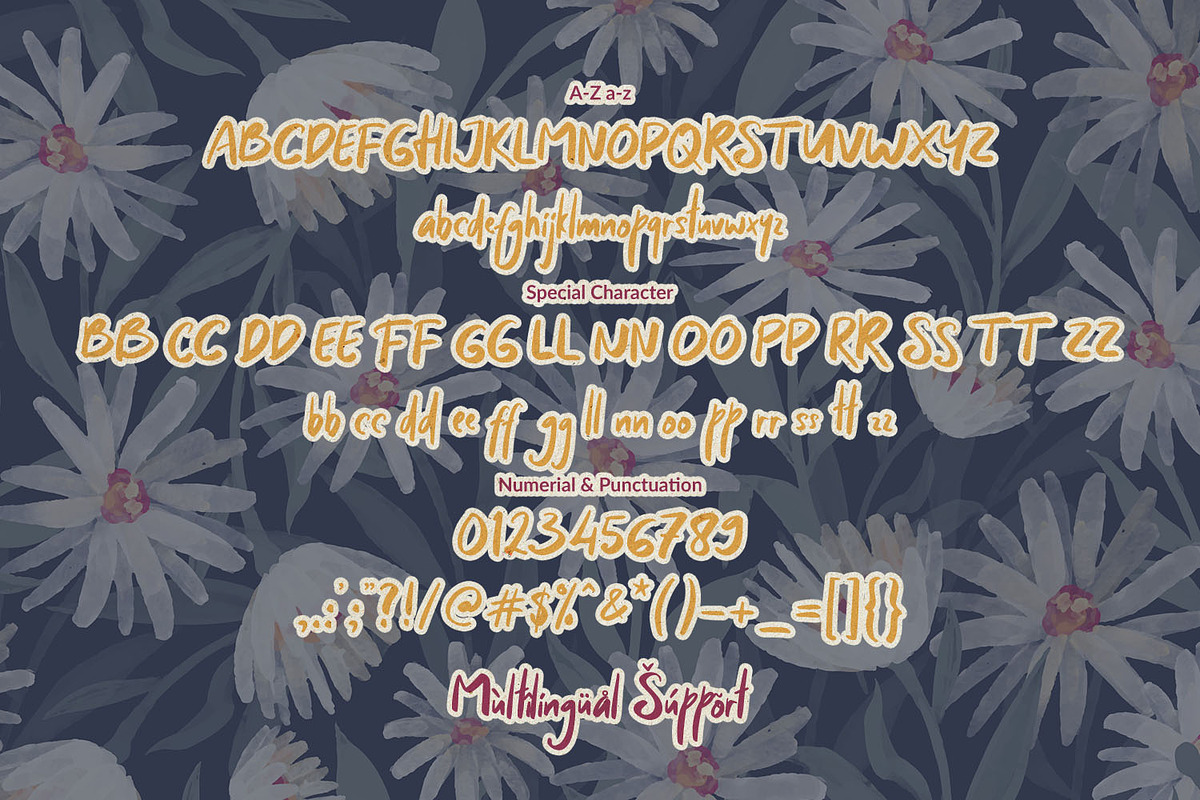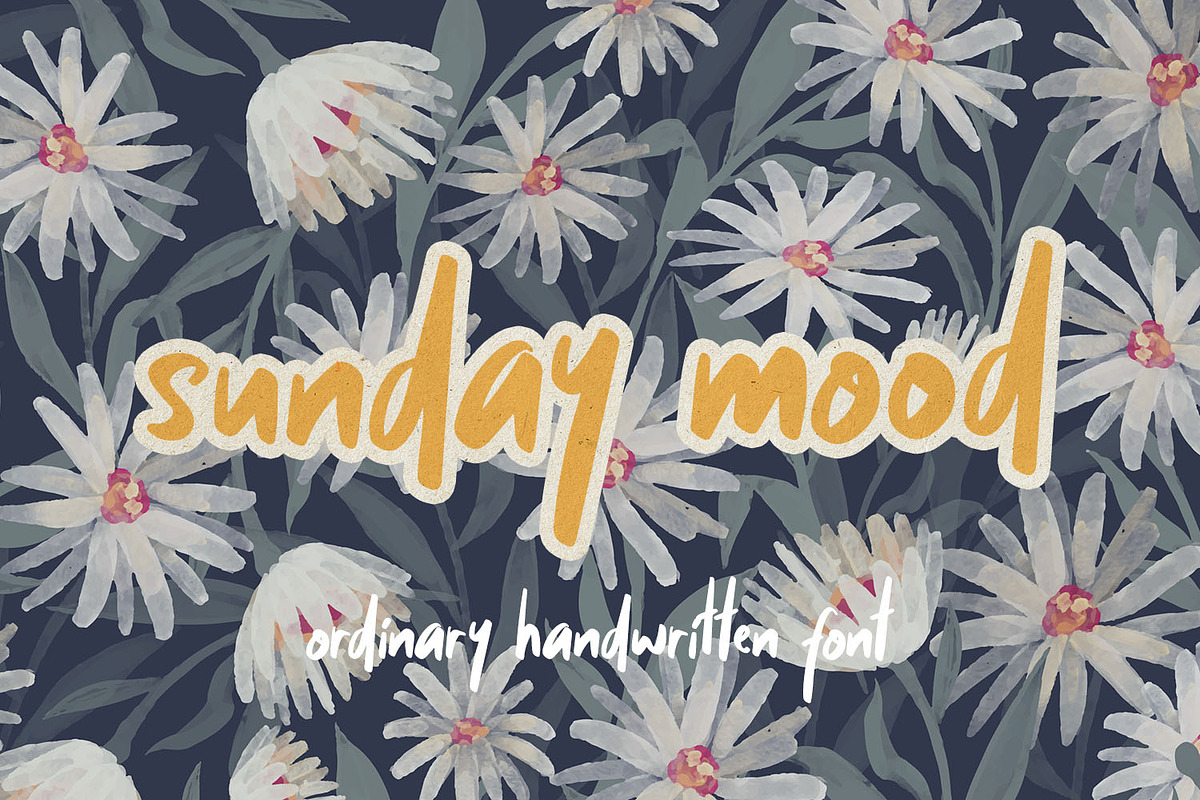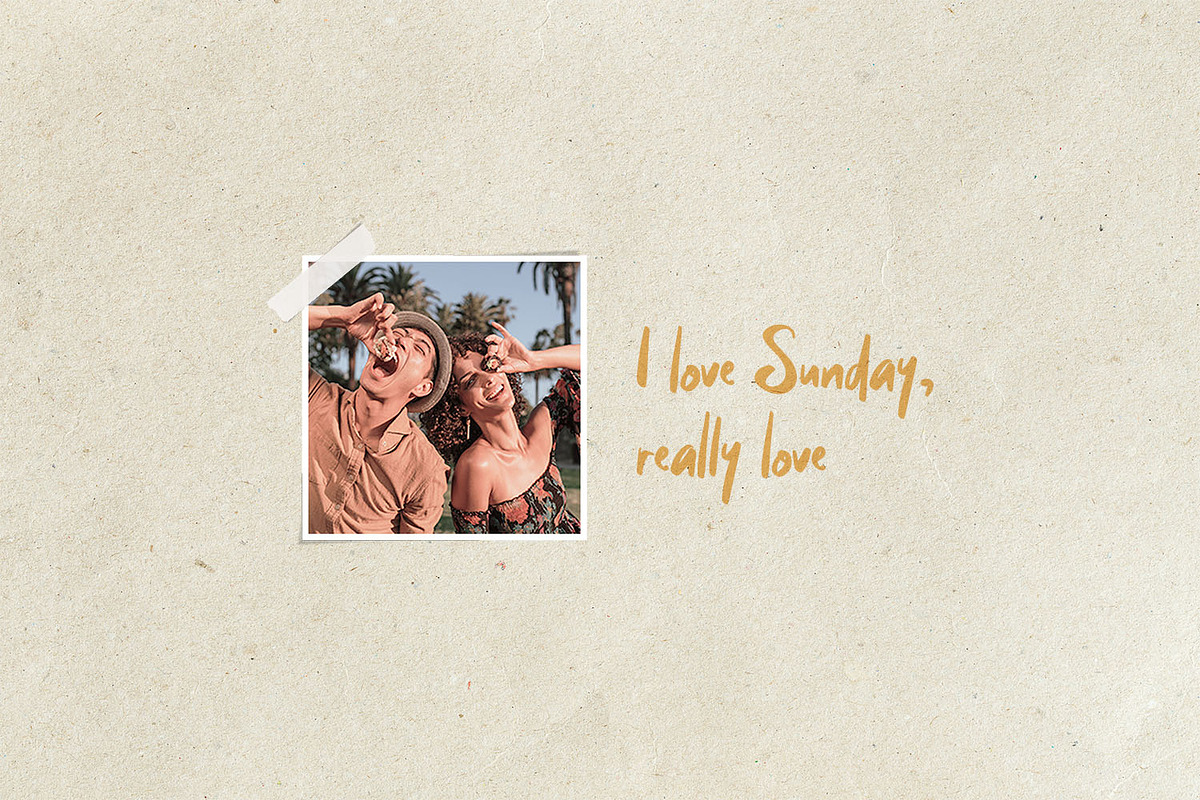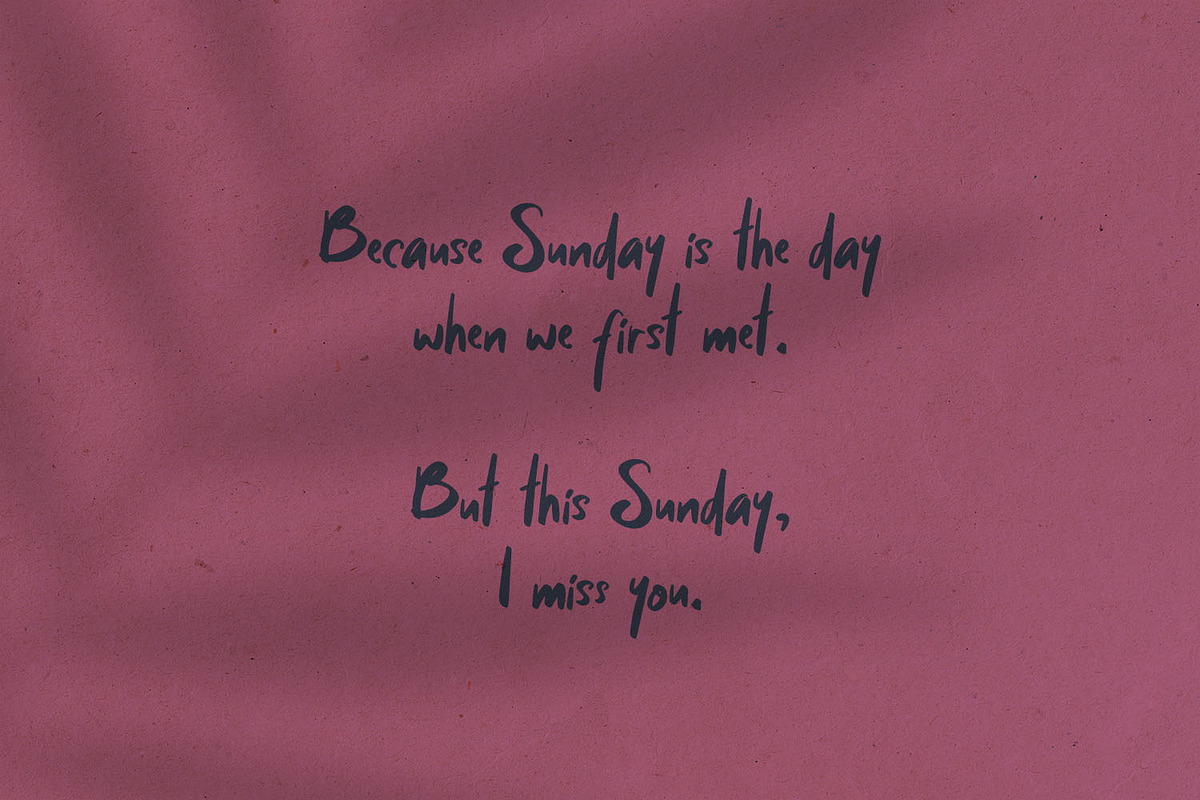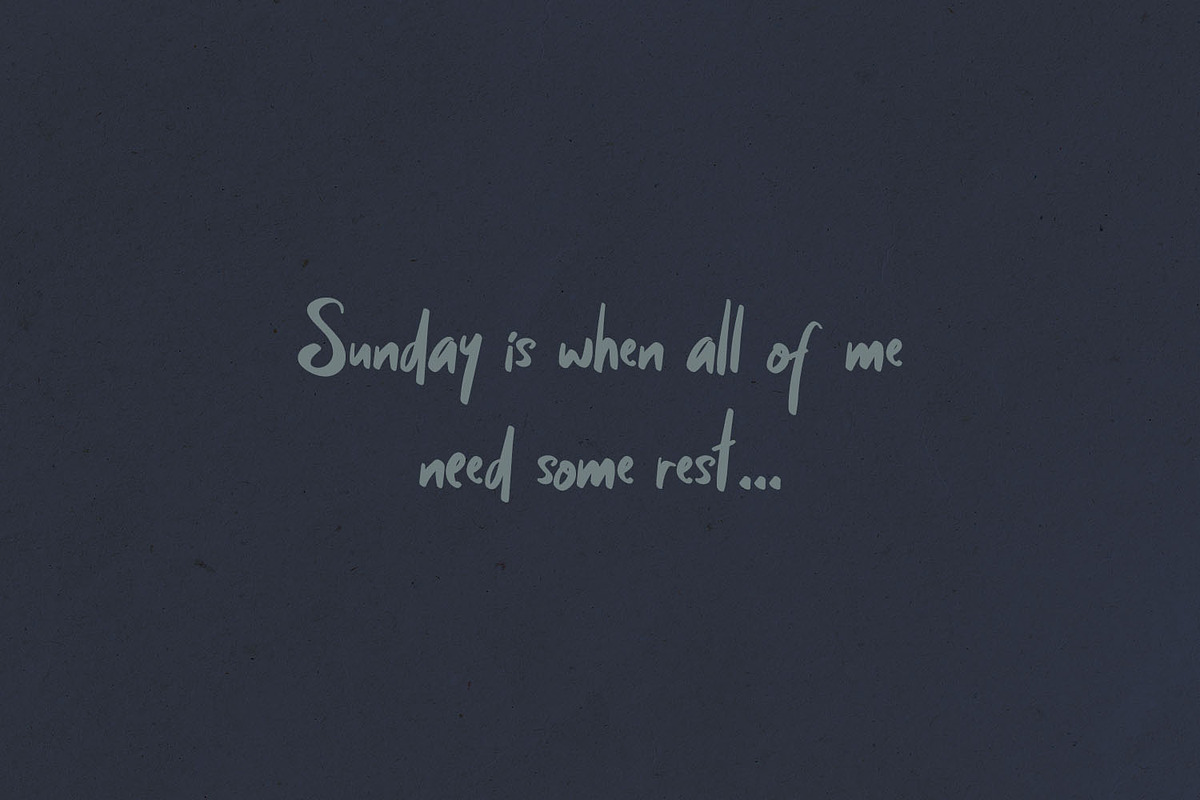
Sunday Mood
Sunday Mood is an ordinary handwritten font, it has natural stroke style. This font is represent calm and free mood. Whether you're looking for fonts for Instagram or calligraphy scripts for DIY projects, this font will turn any creative idea into a true piece of art!